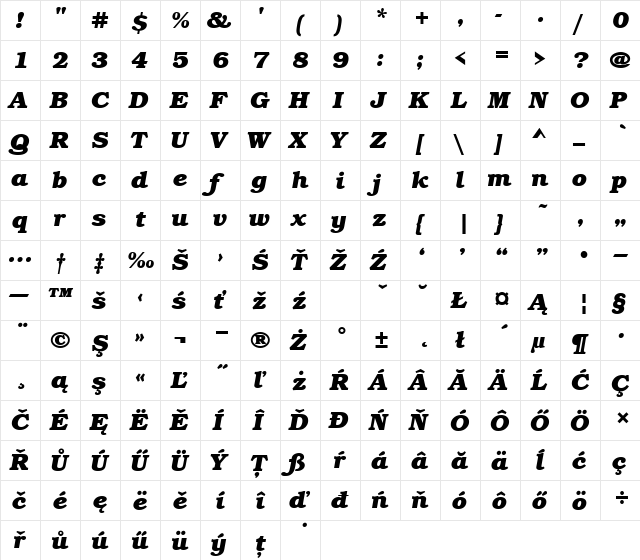
BookmItcTEEBol Bold Italic Font Preview
BookmItcTEEBol Bold Italic
Design Context for BookmItcTEEBol Typeface
BookmItcTEEBol takes a measured approach to typography — its balanced proportions and neutral character make it a reliable workhorse for both digital and print work. Its italic angle brings a sense of urgency and motion to the letterforms. The heavy weight commands attention and anchors typographic hierarchies.